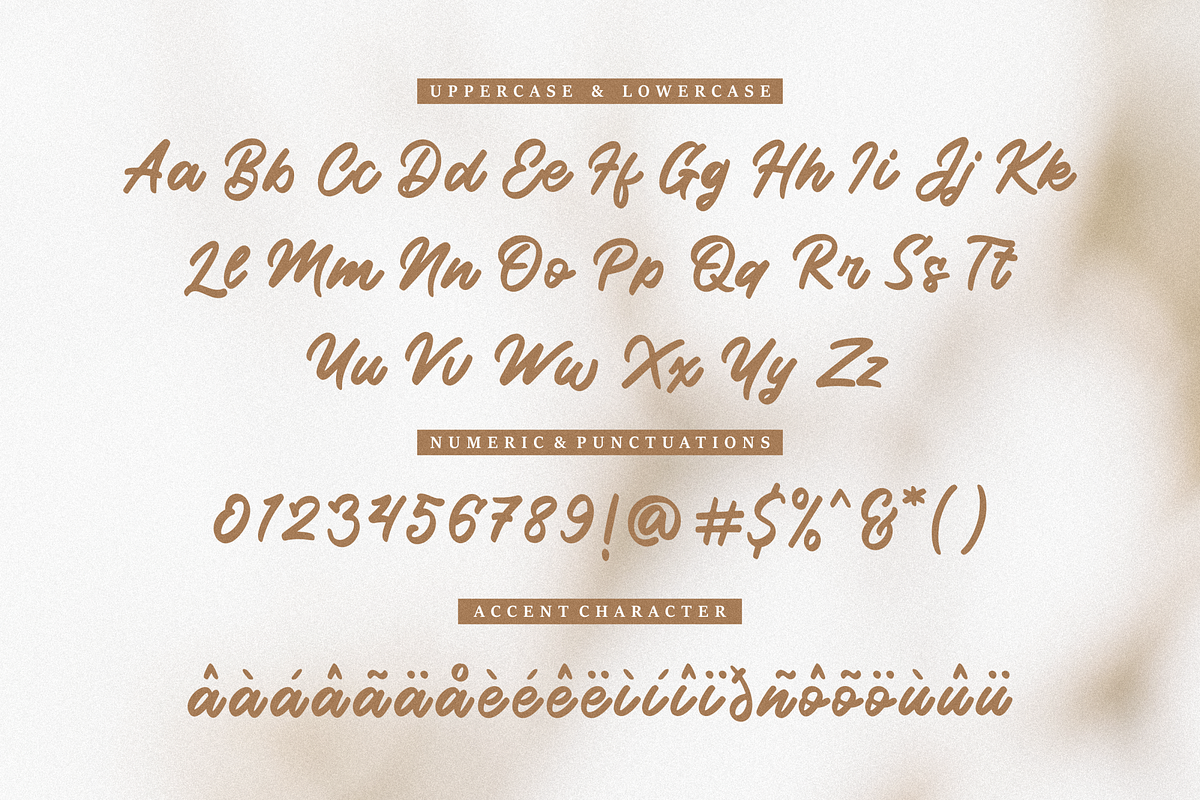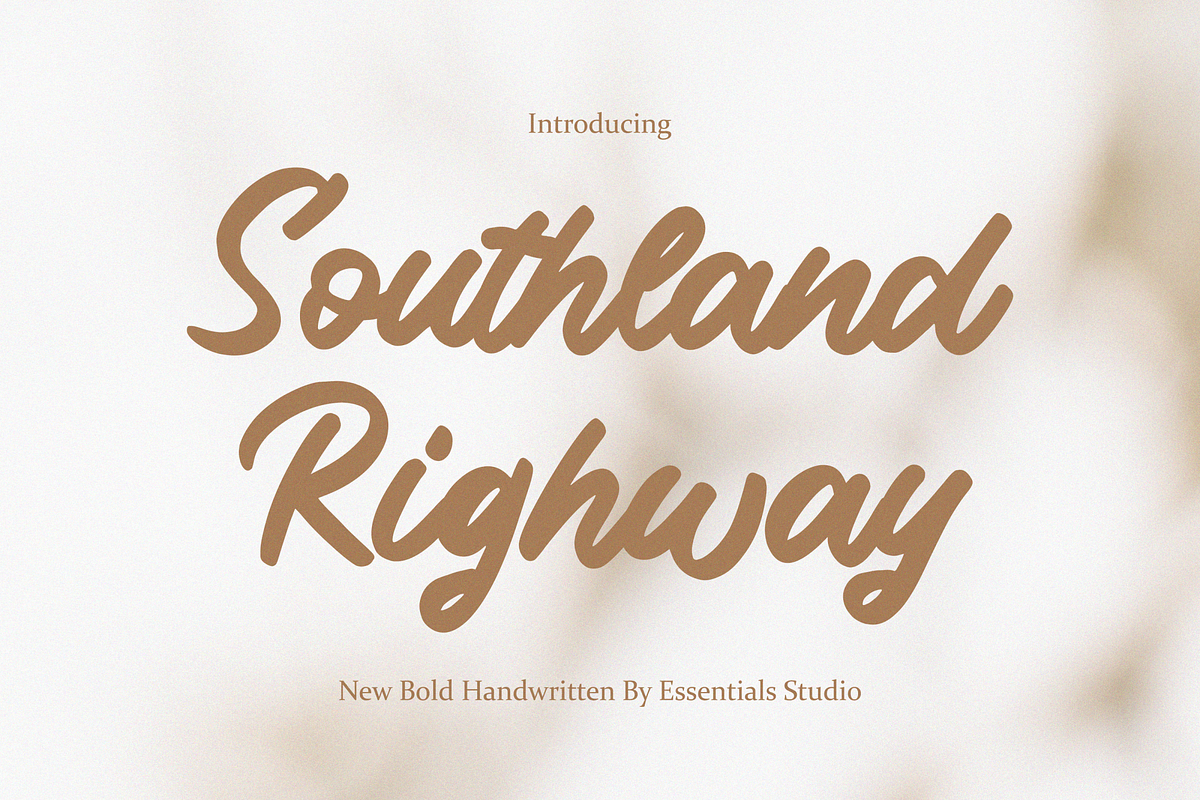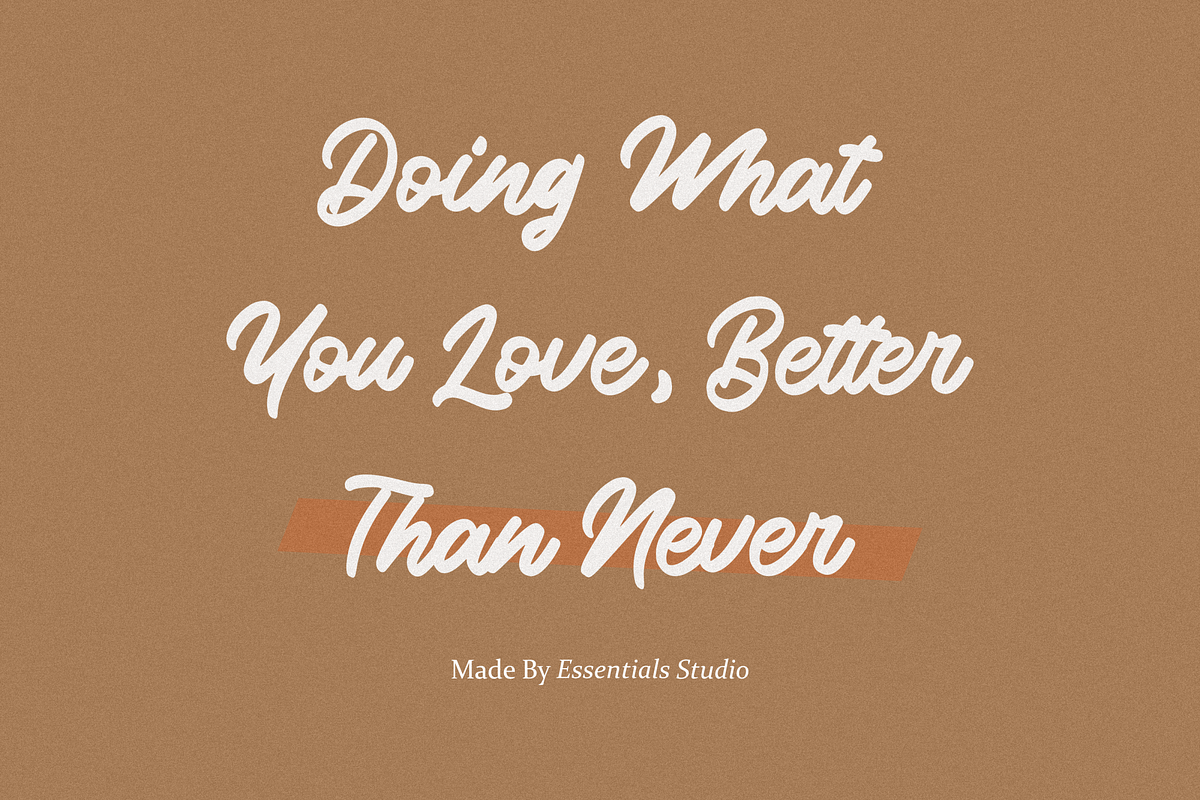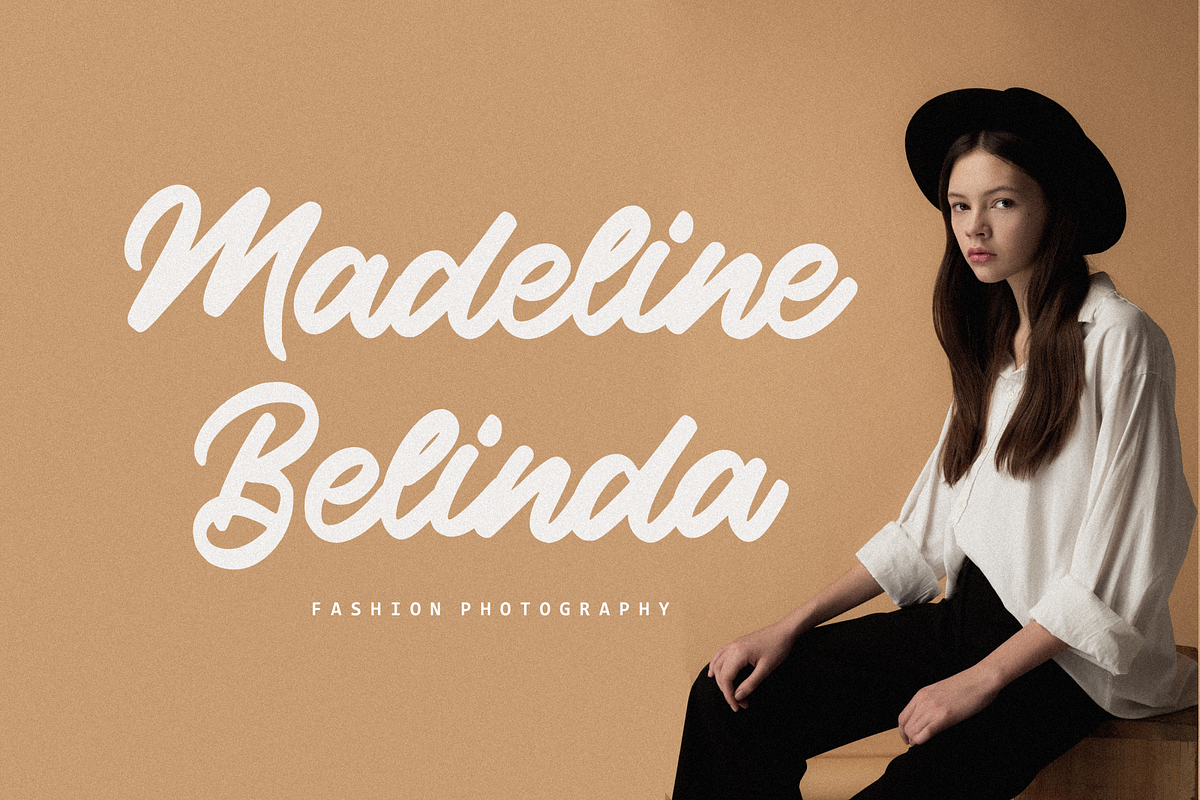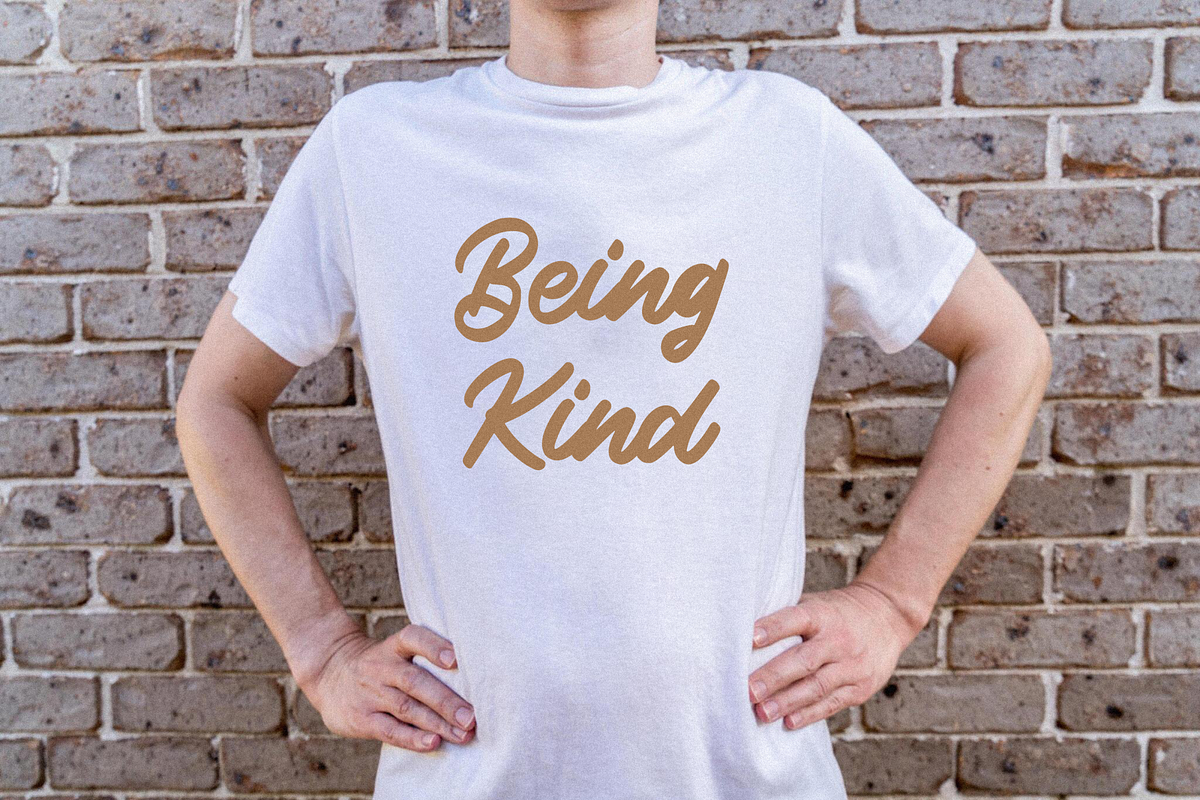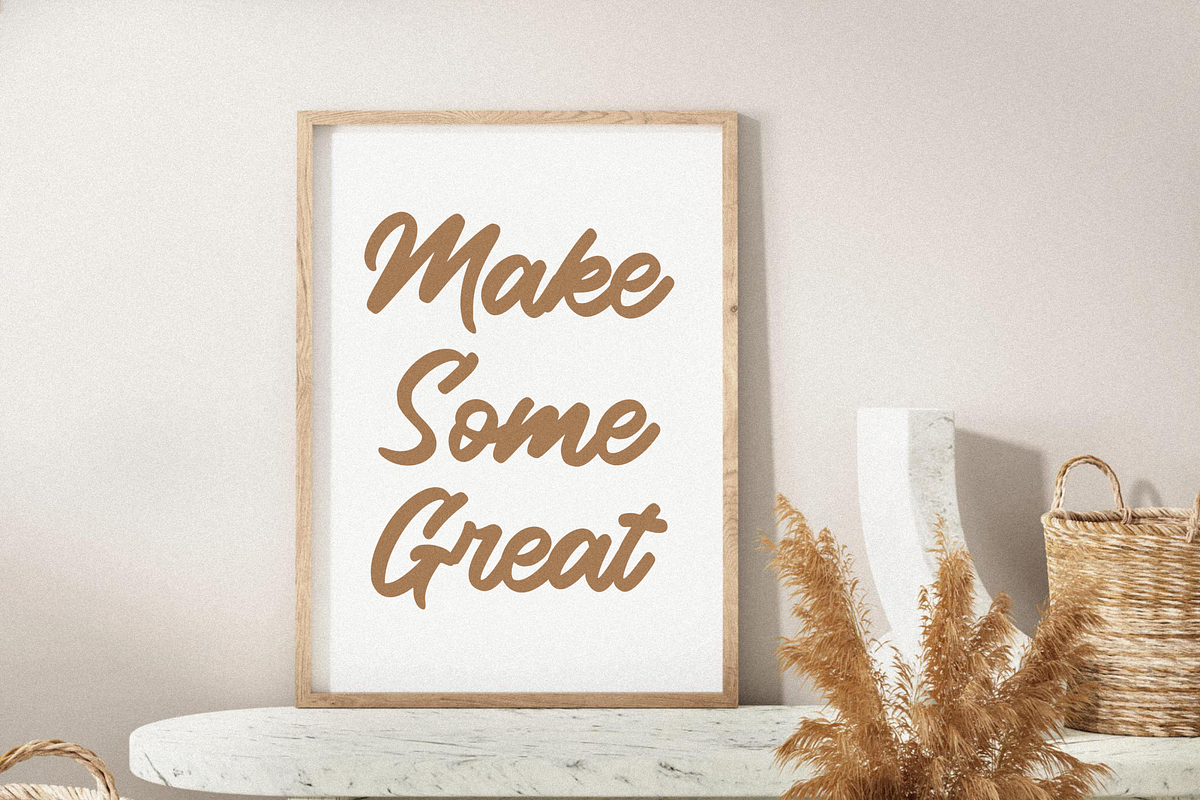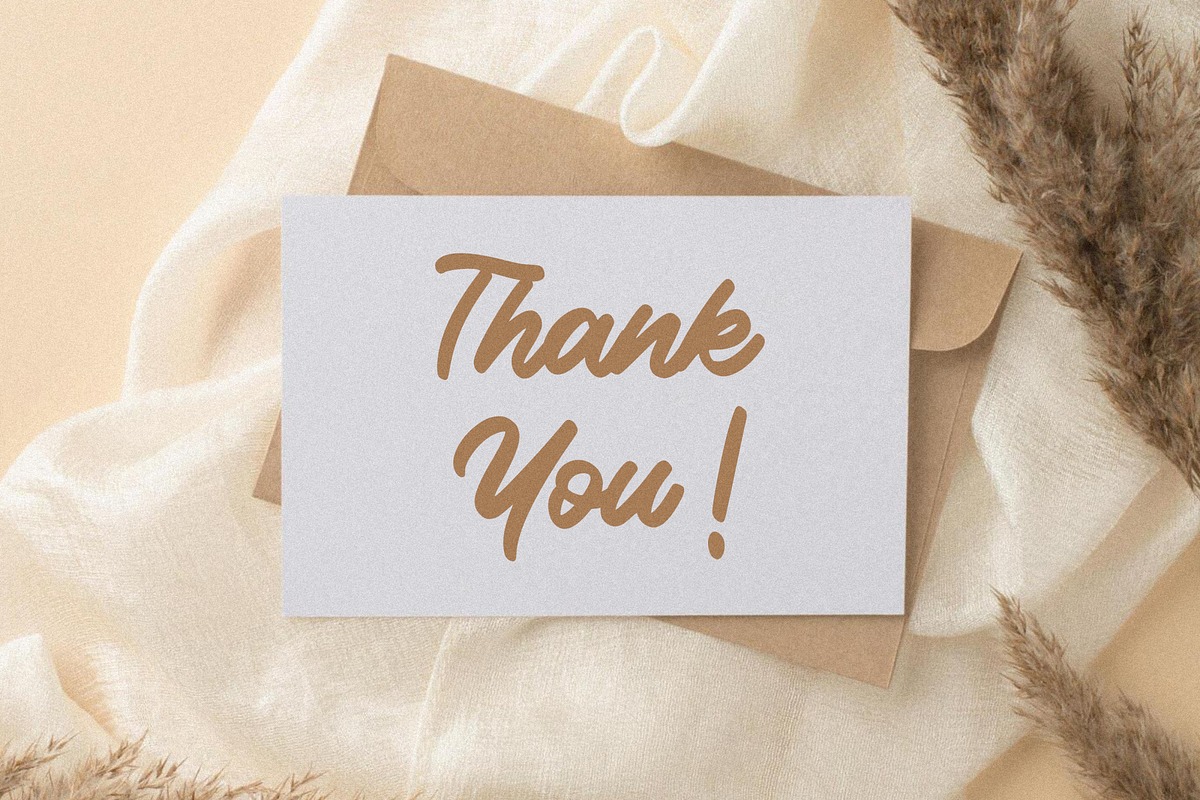
Southland Righway
Southland Righway is a beautiful and Bold Script handwritten font with a unique feel and a stunning impact. It will add a luxury spark to any design project that you wish to create!